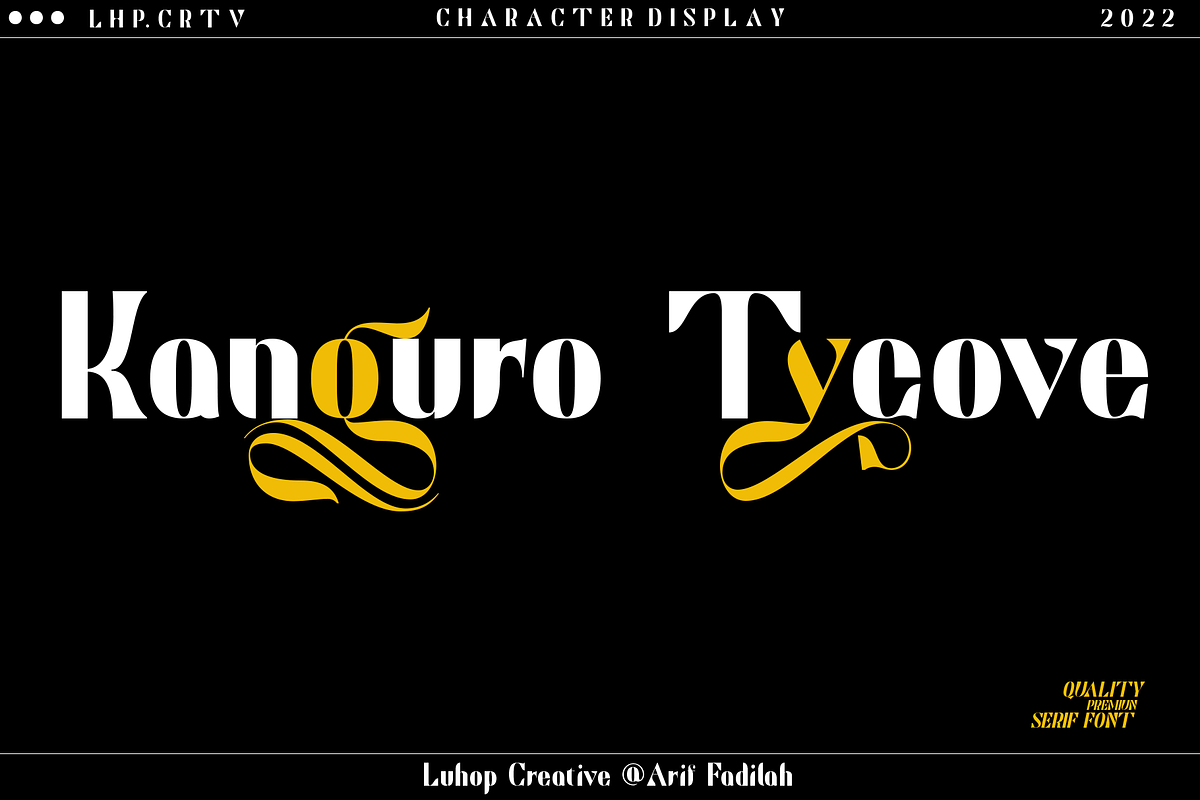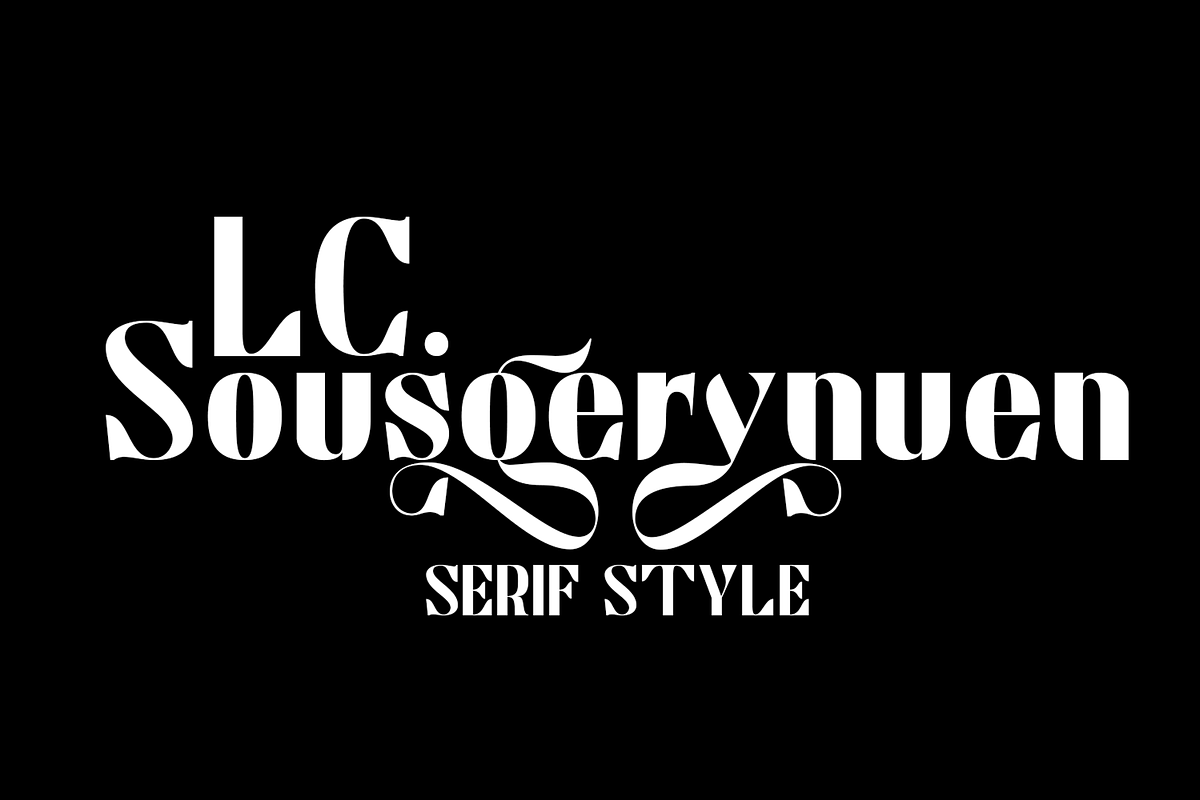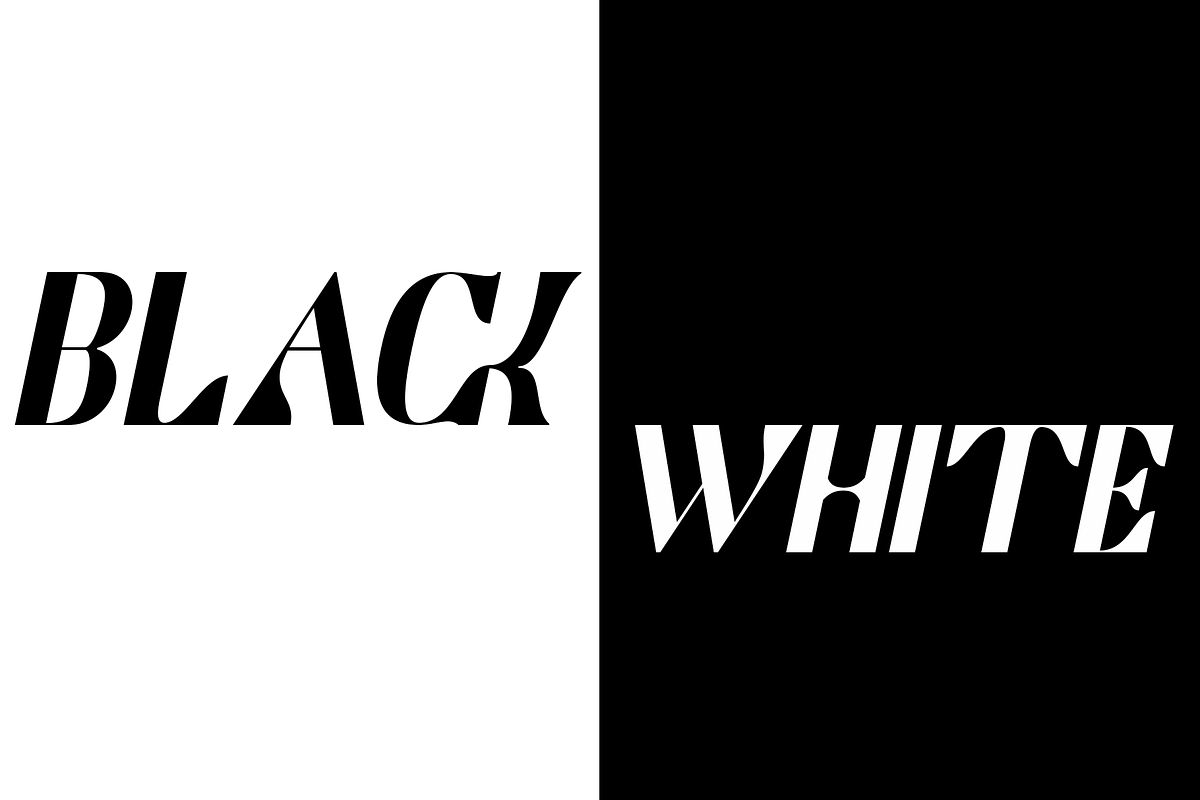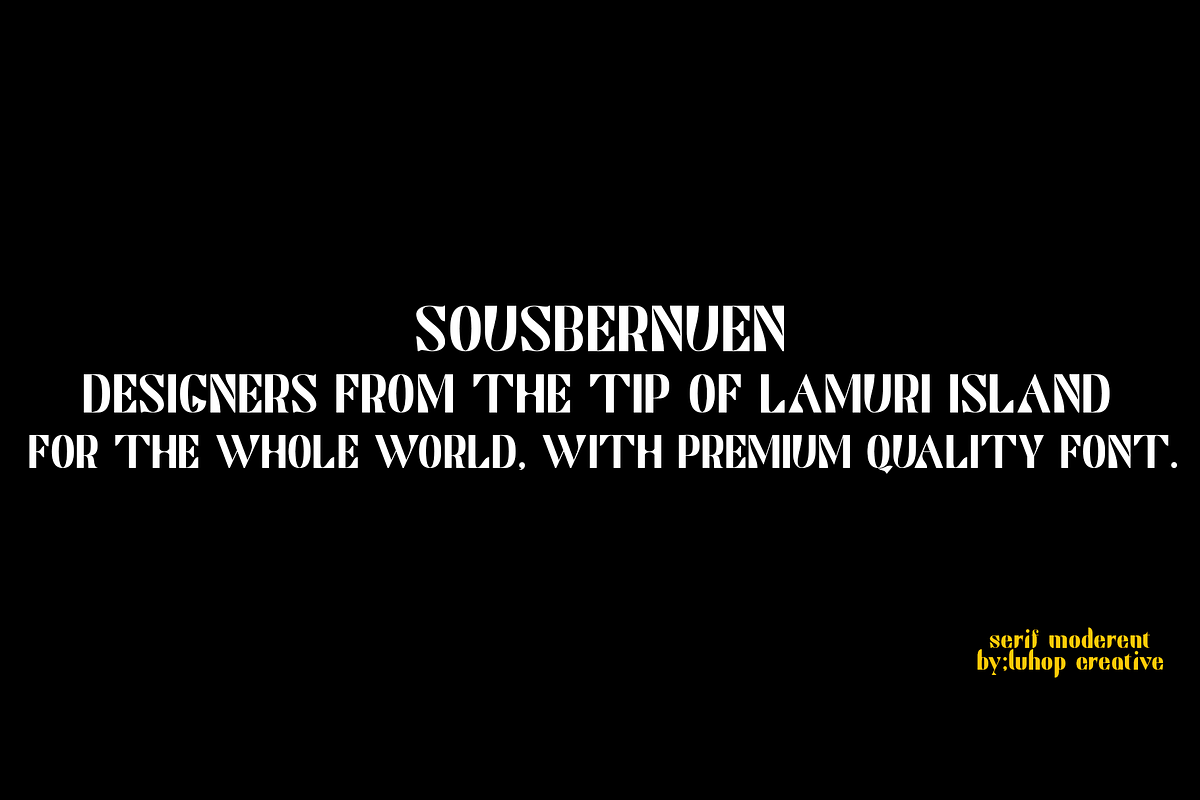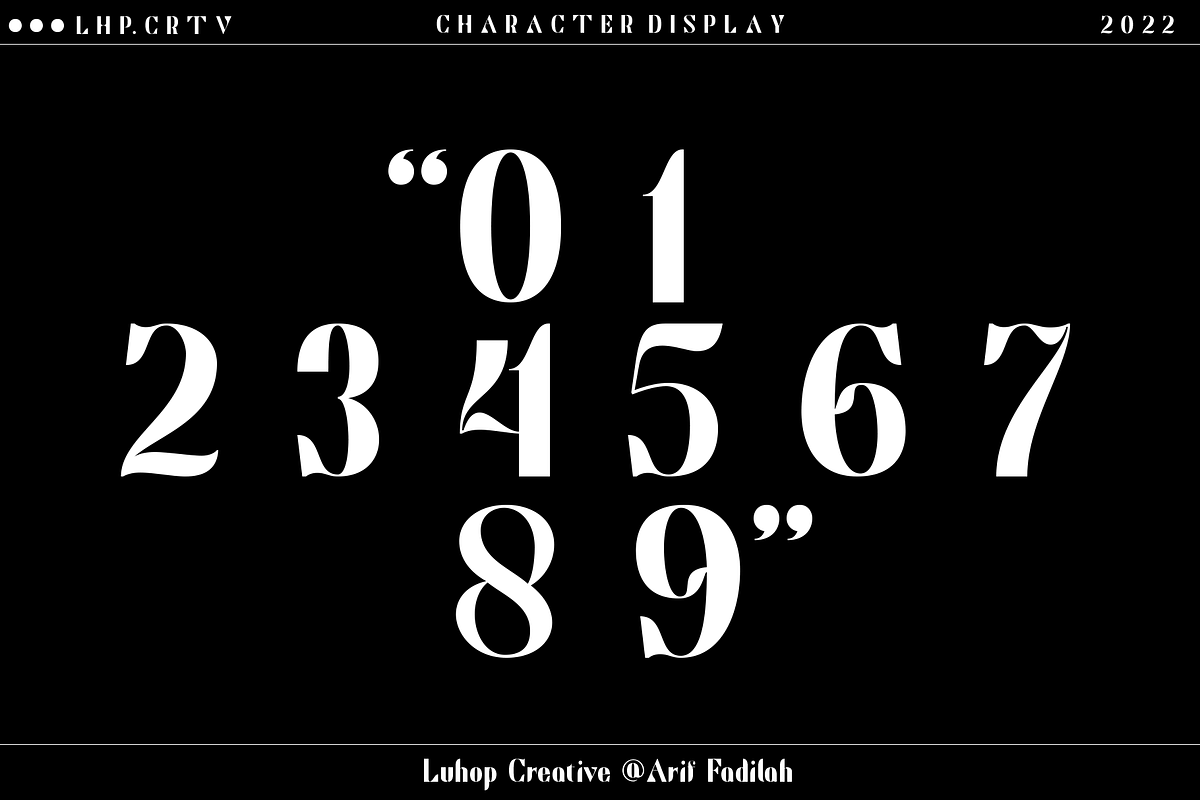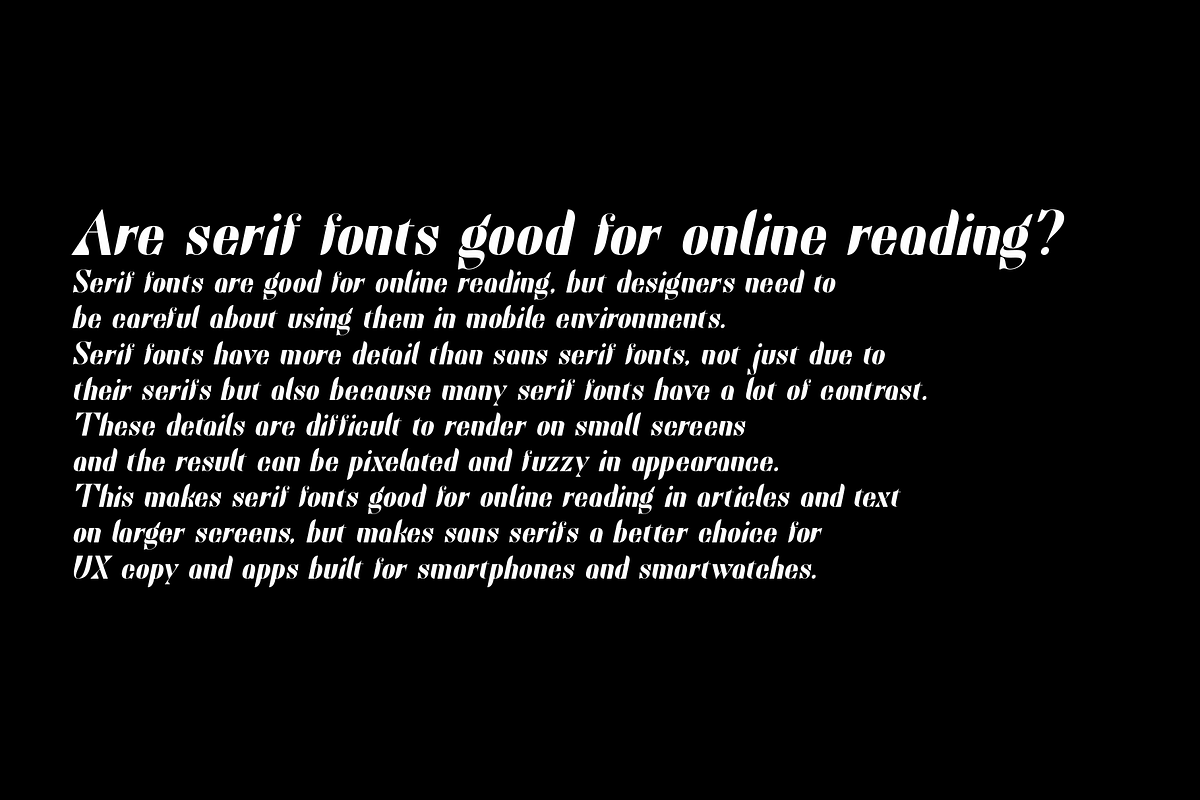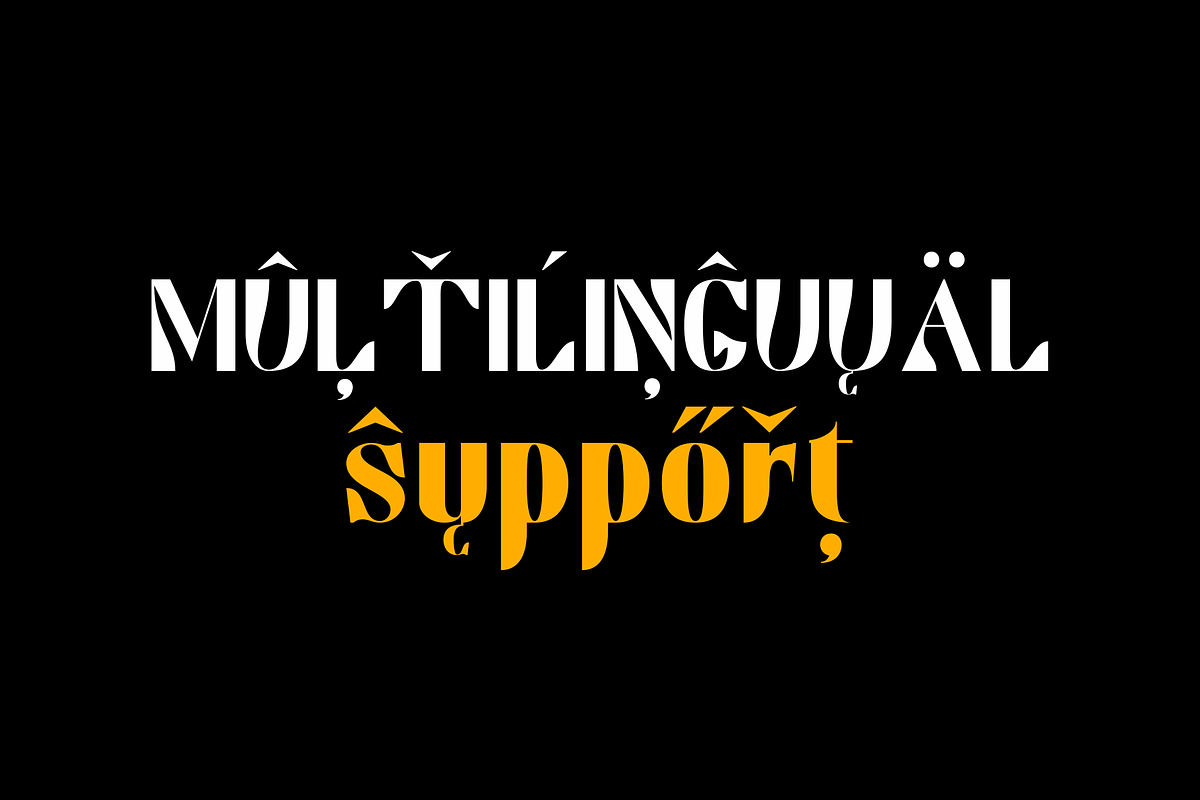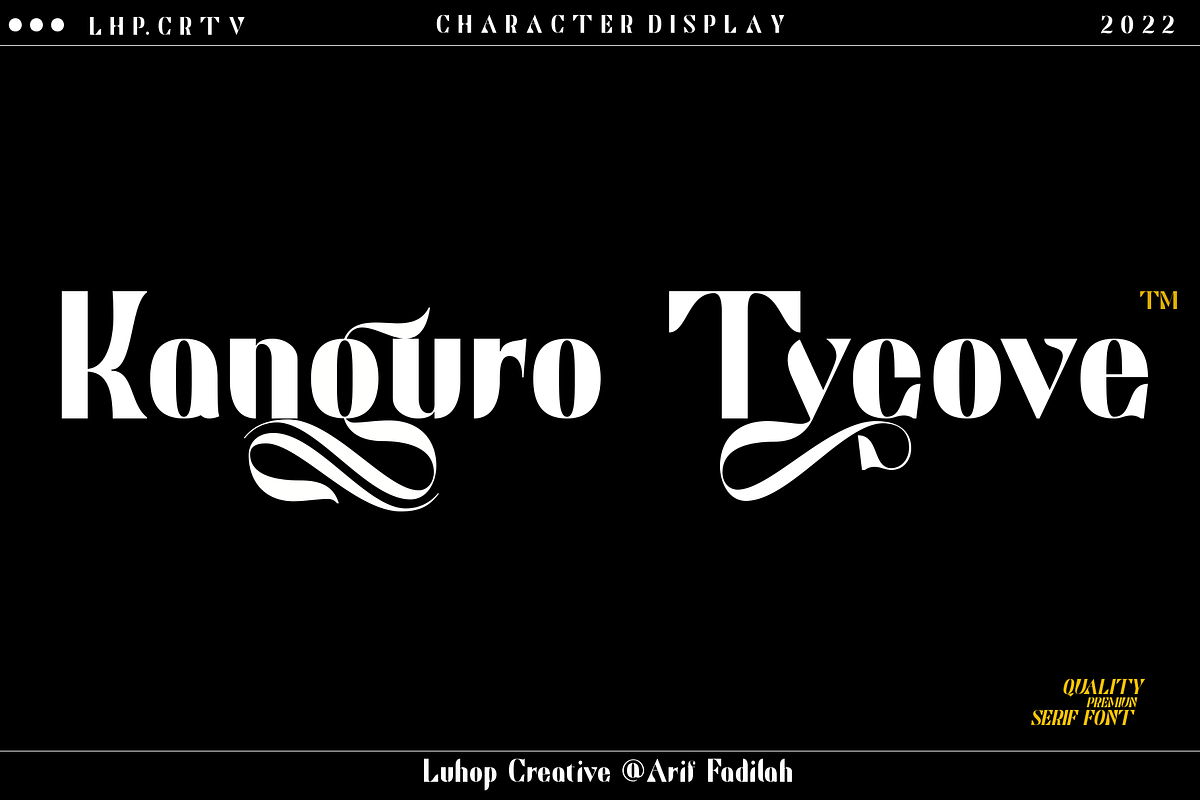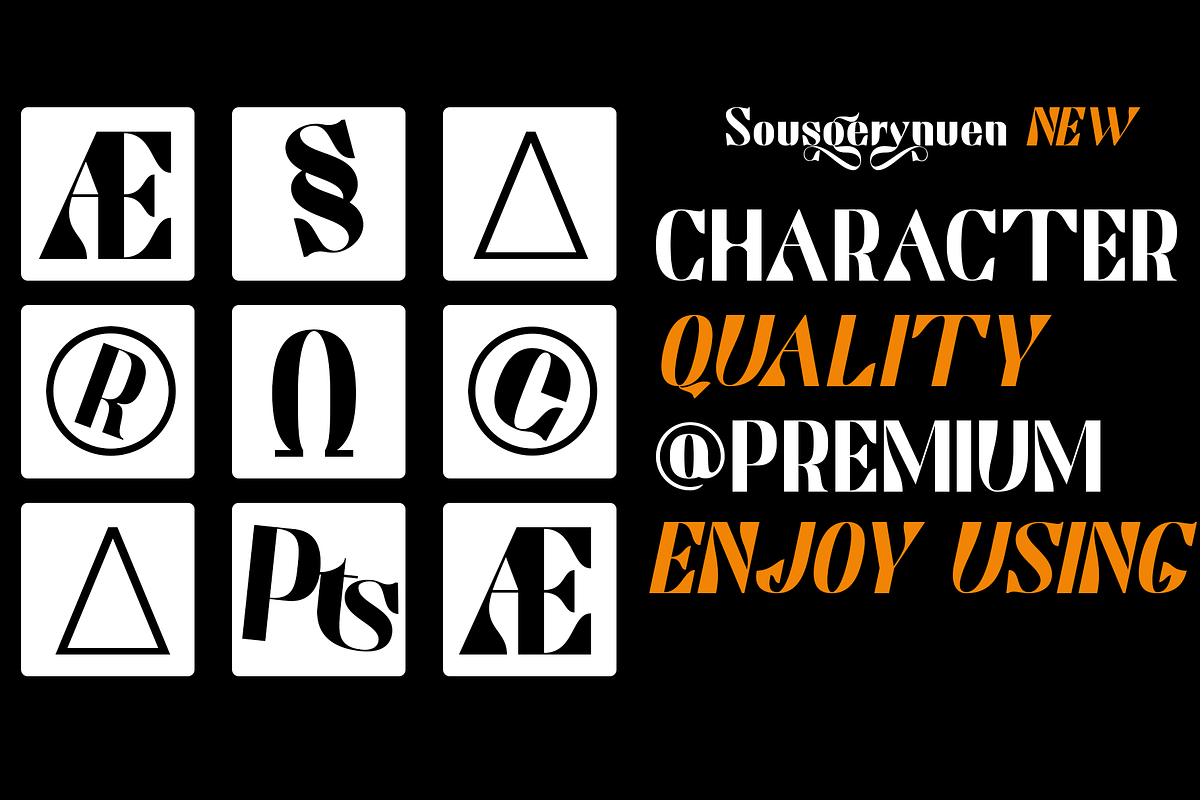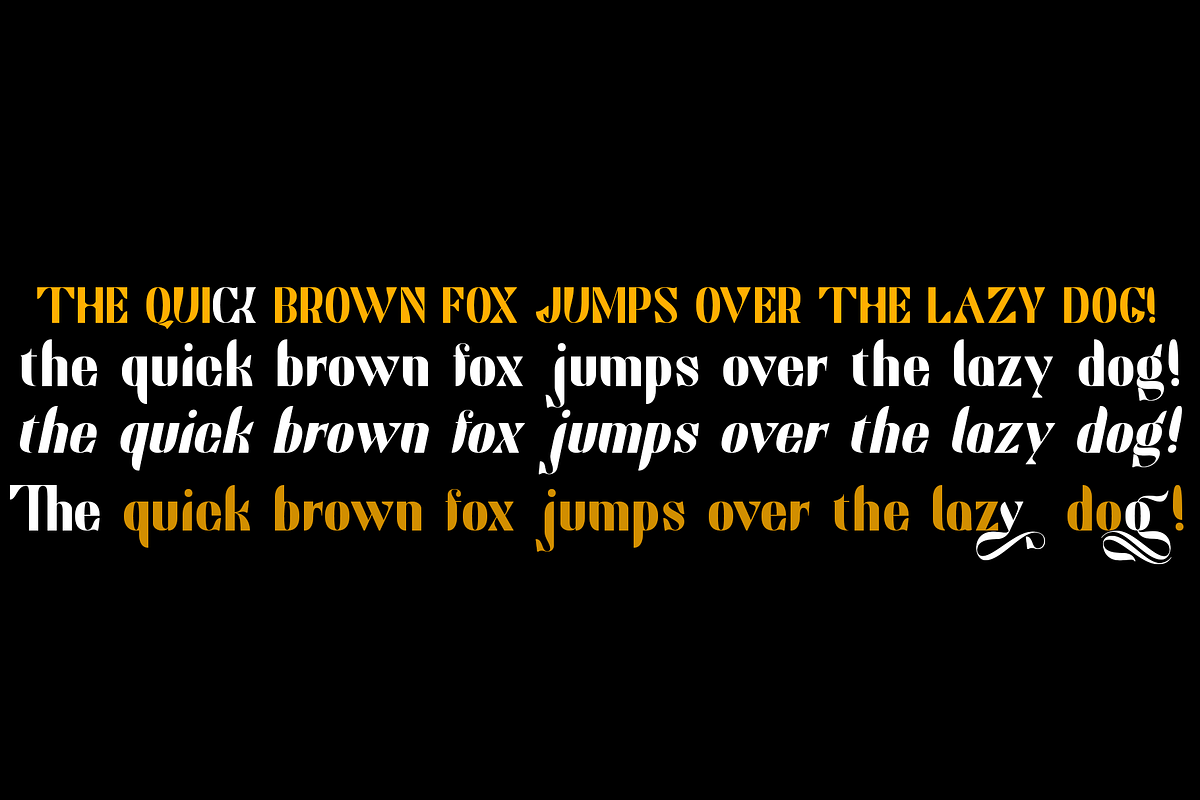
LC Sousgerynuen Serif Premium
LC Sousgerynuen is a modern serif font with the idea of a circular base character style created by Arif Fadilah during the covid pandemic which took almost three months to complete.
LC Sousgerynuen which displays a unique character, modern and semi classic style suitable to be applied in various formal forms such as invitations, labels, restaurant menus, logos, fashion, make-up, stationery, novels, magazines, books, greeting / wedding cards, packaging , labels.
LC Sousgerynuen is also included full set of:
- Uppercase and Lowercase Letters
- Multilingual Opentype Latpro
- Numerals & Symbols
- Standard ligatures and alternates What will you get?